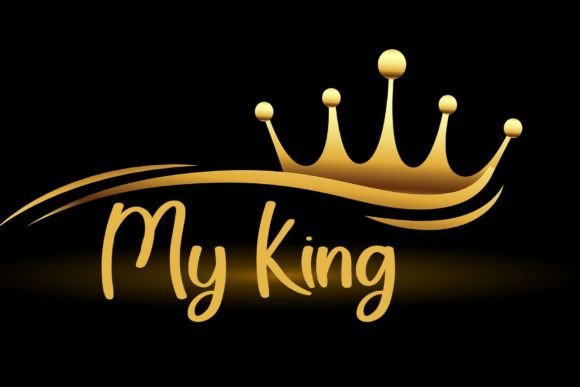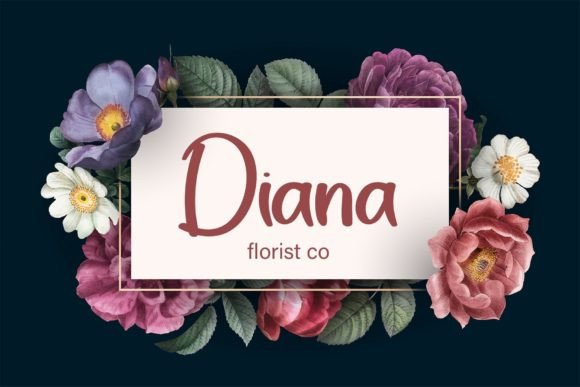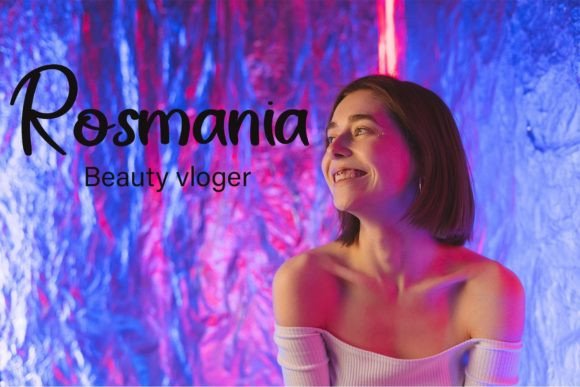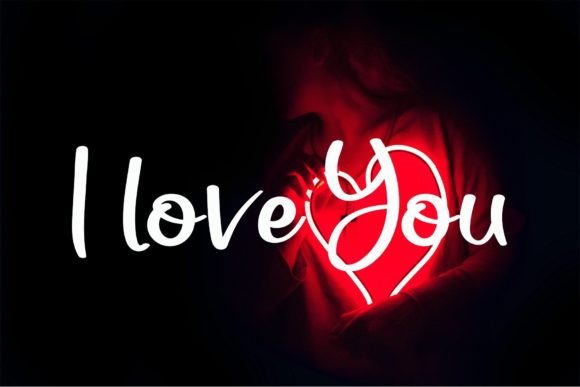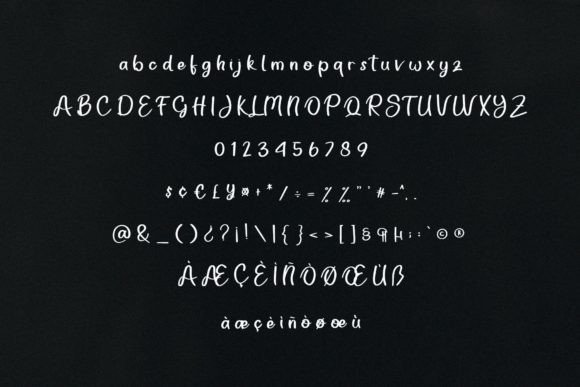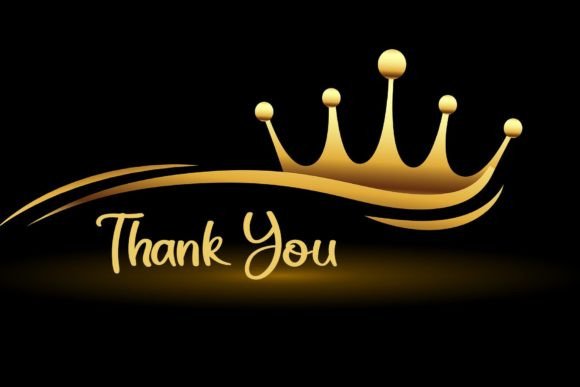
About The Queen Font
“The Queen” is a sweet and beautiful handwritten font that exudes a touch of luxury. With characters that dance along the baseline, this font brings a unique and elegant spark to any design project you wish to create. Whether you’re working on branding, invitations, posters, or any creative endeavor, “The Queen” adds a distinctive and sophisticated touch.
The handwritten charm of “The Queen” introduces a personal and artistic quality to your text, creating an authentic and stylish appearance. The characters dancing along the baseline contribute to a dynamic and lively aesthetic, infusing your designs with movement and flair.
Imagine “The Queen” enhancing the branding of a high-end product or service, where its sweet and beautiful script creates a sense of luxury and exclusivity. Envision it on invitations, adding an elegant and personalized touch to special events or occasions. Picture it on posters or promotional materials, where its unique charm captures attention and elevates the overall visual appeal.
In summary, “The Queen” is more than just a font; it’s a design element that brings sweetness, beauty, and a touch of luxury to your projects. Embrace its distinctive handwritten style, and let it be the spark that enhances your design endeavors, making them stand out with sophistication and charm.